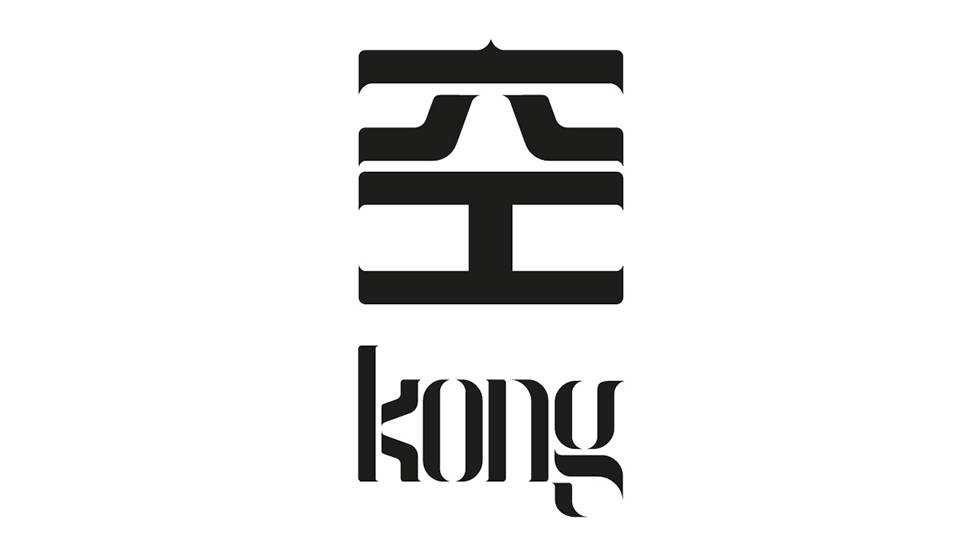
Download Kong font, a modern display typeface with oriental calligraphic terminals mixed into the condensed type giving it that unique artistic expression.